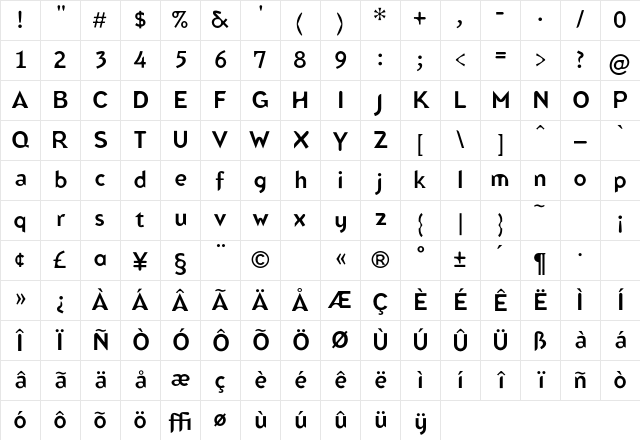
Blindfish Demi
Style: Demi
Blindfish Family
Blindfish Demi
Design Context for Blindfish
Blindfish is a composed and adaptable typeface that performs quietly and consistently across a wide range of design contexts.